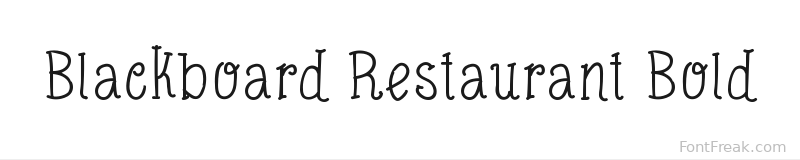
Blackboard Restaurant Bold
Blackboard Restaurant Bold is a charming display typeface designed by Galdino Otten Fonts. Released in 2017, this font captures the inviting essence of casual dining with its unique handwritten style. As a decorative font, it features a bold stroke weight that adds a sense of warmth and approachability, making it ideal for various applications. The rounded edges and slightly irregular shapes provide a personal touch, reminiscent of chalkboard menus often seen in cozy restaurants.
The visual characteristics of Blackboard Restaurant Bold include a moderate contrast in stroke thickness, which enhances legibility while maintaining its playful aesthetic. The generous spacing between characters contributes to its readability, allowing it to stand out in busy environments. This typeface is particularly suited for restaurant menus, where it can convey a friendly and welcoming atmosphere. Additionally, it works beautifully for food truck branding, café signage, and casual event invitations, making it a versatile choice for small business owners and graphic designers alike.
Targeted towards graphic designers and content creators, Blackboard Restaurant Bold is an excellent option for anyone looking to evoke a sense of familiarity and comfort in their designs. Its casual style resonates with audiences seeking authentic dining experiences, making it a perfect fit for promotional materials in the hospitality industry.
In conclusion, the Blackboard Restaurant Bold font free download offers a distinctive and appealing option for those in need of a handwritten typeface. Its unique visual characteristics and versatility set it apart from other fonts, making it a must-have for projects that aim to create a friendly and inviting atmosphere. Whether you're designing a menu or crafting promotional materials, this font brings a delightful touch that enhances any creative endeavor.